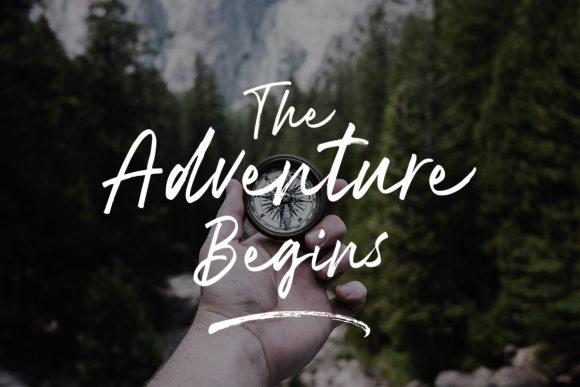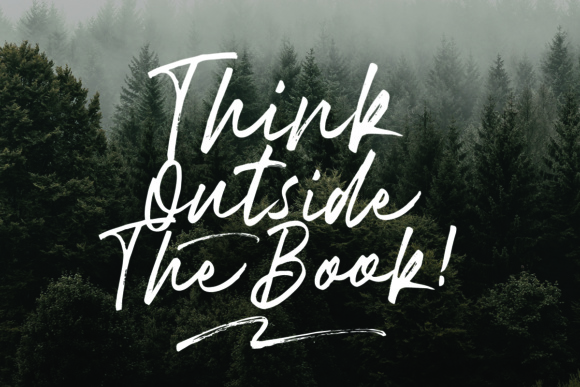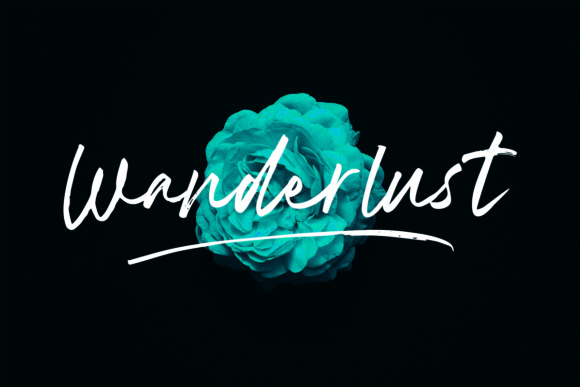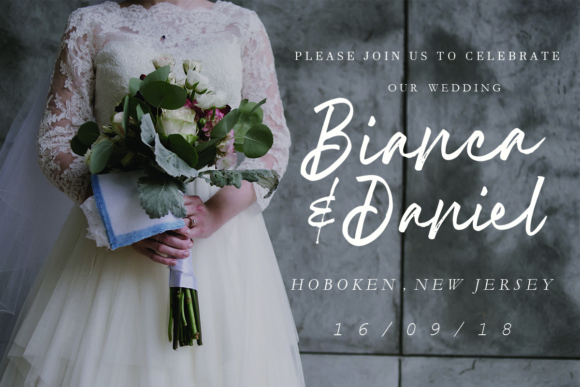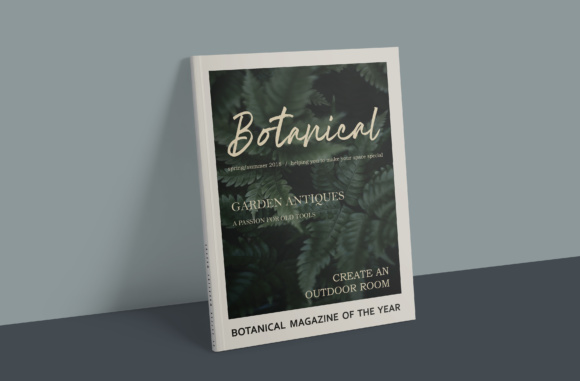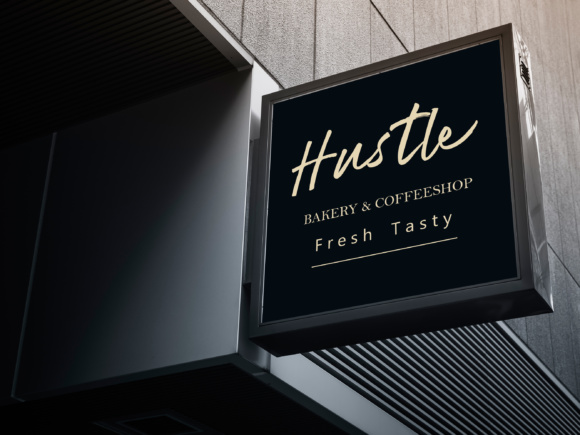
Creating Something Magical: The Dreamland Font
You’ve been staring at a blank page, your mind racing with ideas, but nothing seems to flow. The cursor blinks at you, taunting you to start creating. It’s a familiar feeling, one that every artist and designer has experienced at some point. But what if you had the perfect tool to unlock your creativity? Enter the Dreamland Font, a handcrafted typeface designed to bring out the best in your handwriting.
With its unique combination of elegance and playfulness, the Dreamland Font is perfect for designers looking to add a personal touch to their work. Whether you’re a graphic designer, illustrator, or writer, this font will help you create something truly special. Its versatility and charm make it a valuable addition to any creative arsenal, and its handcrafted nature ensures that every project is truly one-of-a-kind.
Dreamland Font Key Features
- Unique Characteristics: The Dreamland Font features a unique, dreamy aesthetic with flowing curves and elegant lines, making it perfect for creative projects, such as book covers, magazine layouts, and advertising materials.
Dreamland Font Review
Overall, I’m really loving the aesthetic of the Dreamland Font. It’s ✨ whimsical, ✨ elegant, and ✨ versatile, making it perfect for a wide range of design projects.
- ✨ Beautiful, hand-drawn feel that adds a touch of personality to any design.
- ✨ Wide range of weights and styles to choose from, making it easy to find the perfect fit for your project.
- ✨ Easy to read, even at small font sizes.
- ⚠️ Limited language support, which may be a issue for designers working on projects that require multiple languages.
- ⚠️ Some of the weights and styles can feel a bit inconsistent, which may affect the overall cohesion of your design.
- ⚠️ Not ideal for large blocks of text, as the font can start to feel a bit cluttered.
Overall, I think the Dreamland Font is a great addition to any designer’s toolkit. While it may have some limitations, its unique aesthetic and versatility make it a great choice for a wide range of projects.
Dreamland Font: A Practical Application Guide
Tips for Getting the Most Out of Dreamland Font
For a cohesive look, use Dreamland Font consistently throughout your design. Experiment with different font sizes and styles to create visual interest. Consider pairing Dreamland Font with other fonts to add contrast and depth.
Dreamland Font is perfect for creative projects, such as posters, flyers, and social media graphics. It’s also great for branding and logo design, where a unique and eye-catching font can make a big impact.
Alternatives to Dreamland Font
Great Vibes is a beautiful, elegant script font that is perfect for adding a touch of sophistication to your designs. It features a flowing, handwritten feel that is ideal for headings, titles, and quotes. When to use: For high-end branding, luxury products, or creative projects that require a premium feel.
Comparison: While Dreamland Font has a more whimsical feel, Great Vibes is more refined and polished. Great Vibes is a better choice when you need a more mature and elegant look.
Q: What is the recommended font size for the Dreamland Font?
The recommended font size for the Dreamland Font is between 12 and 24 points. This will ensure that the font is legible and visually appealing. However, you can adjust the font size to suit your specific design needs and preferences.